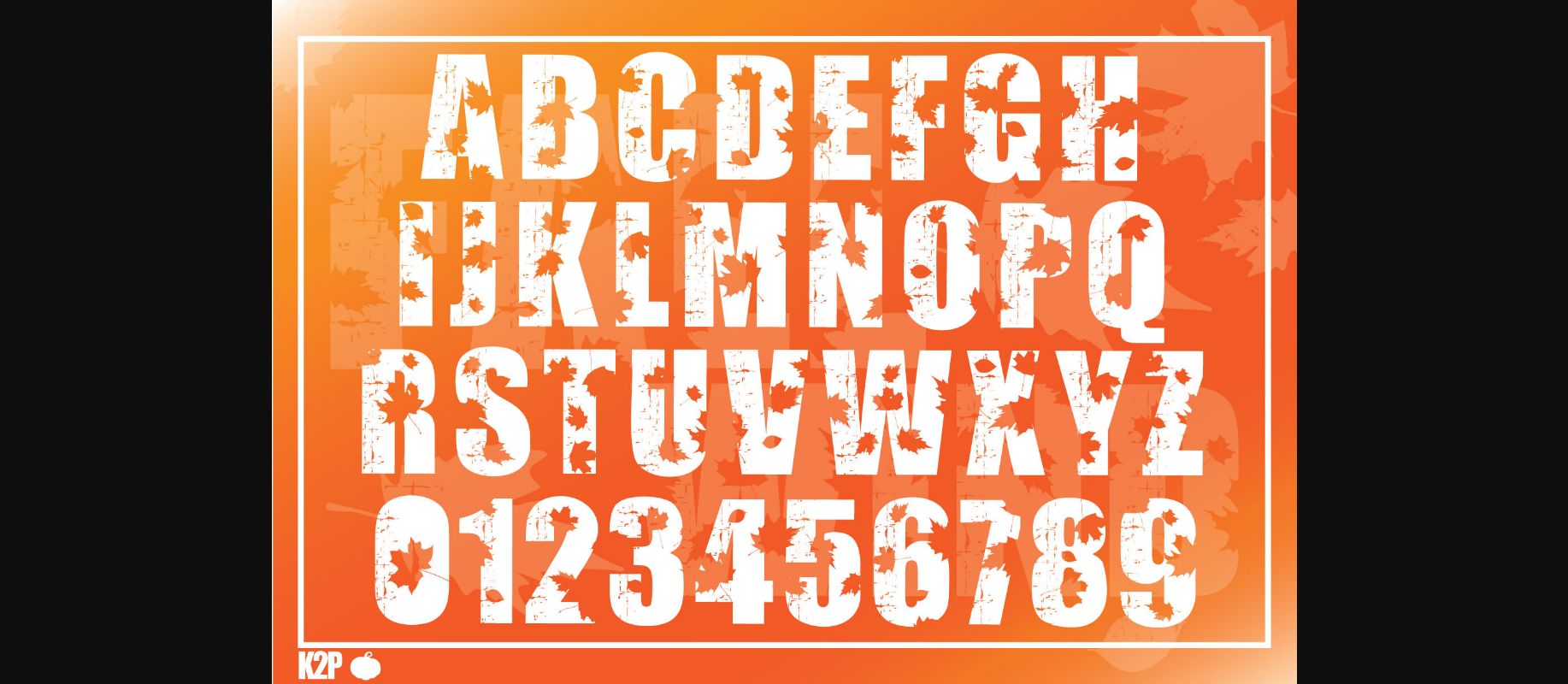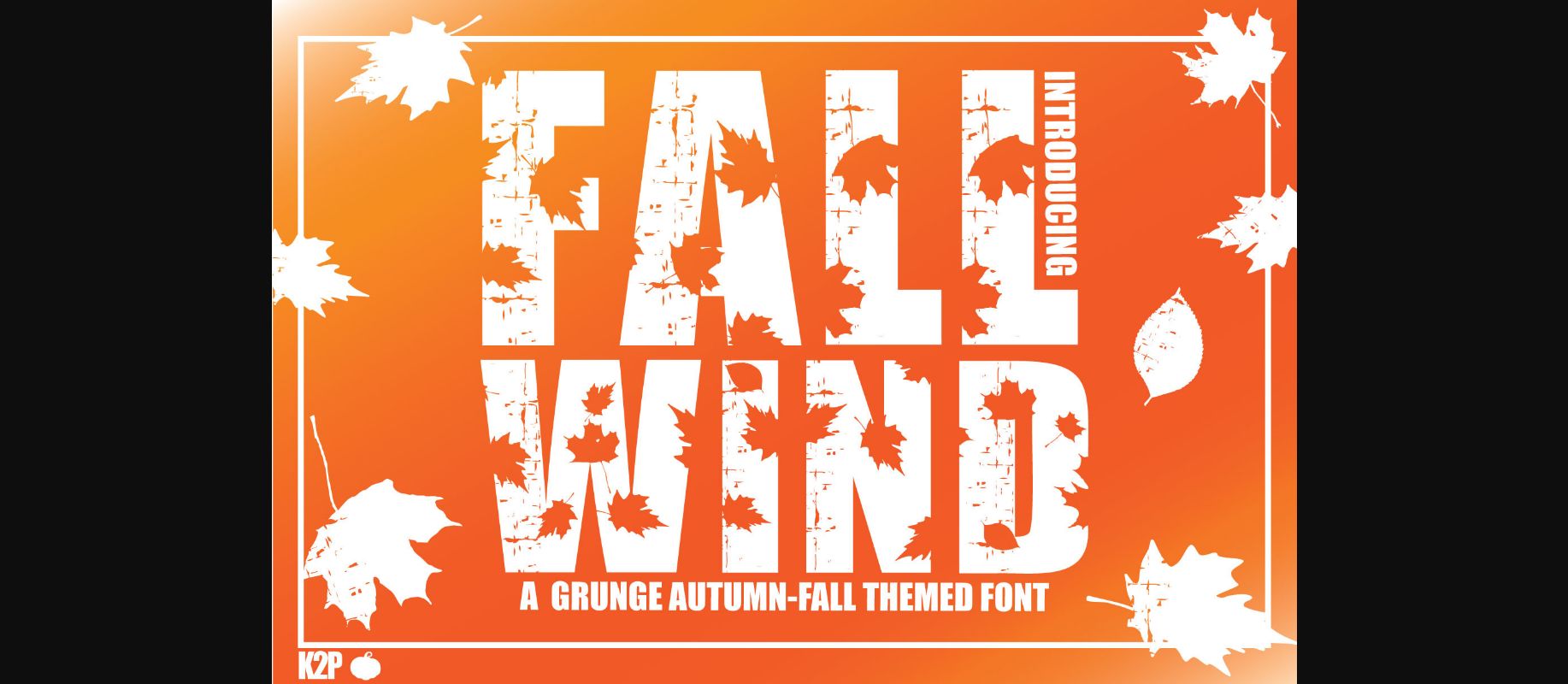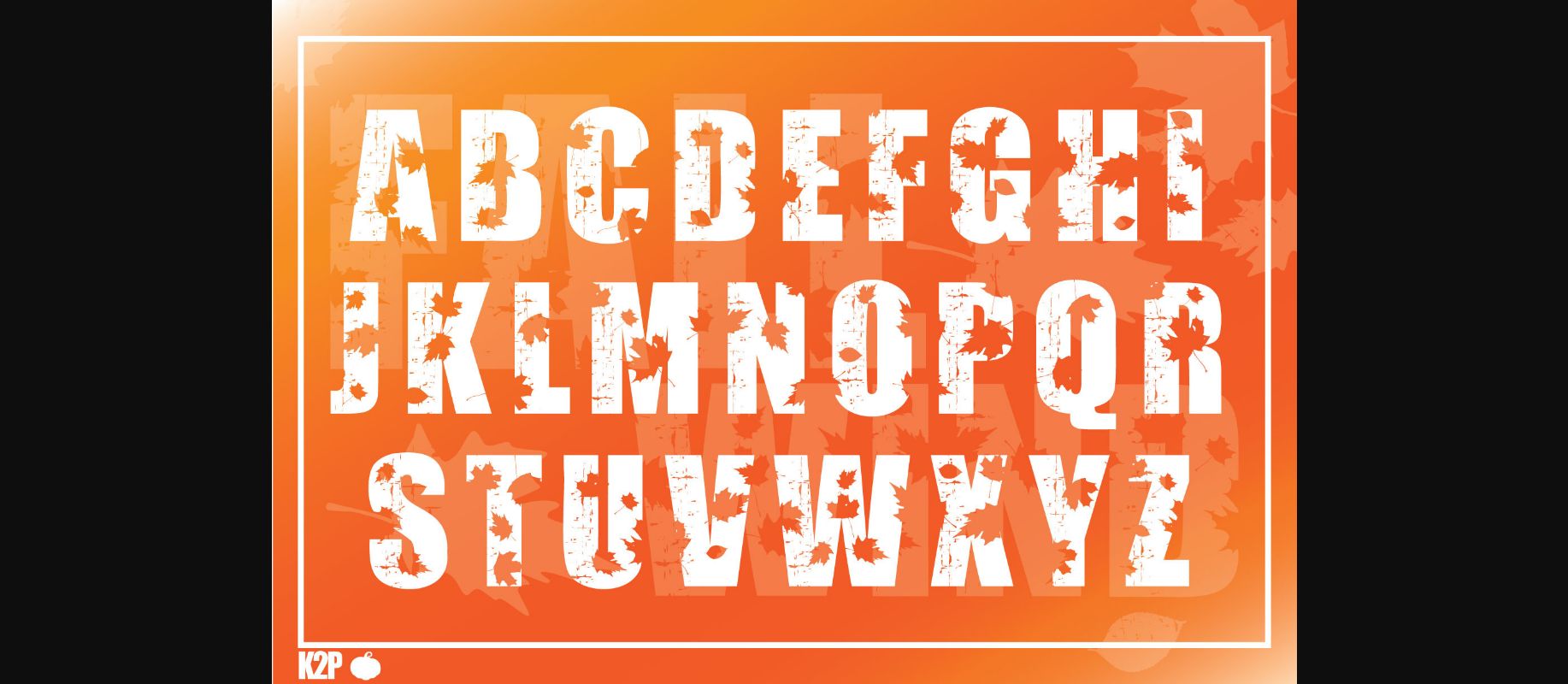
About Fall Wind Font
Fall Wind is a thick lettered and incredibly cute decorative font. It can be used for various design ideas, particularly those related to the Fall season. Fall Wind is PUA encoded which means you can access all of the glyphs and swashes with ease!